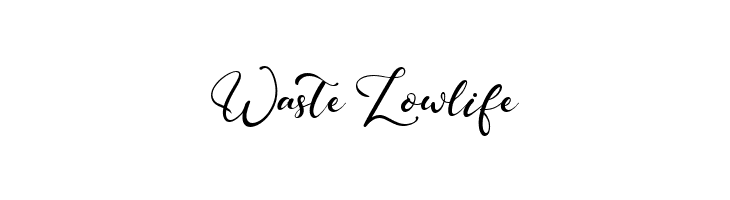
A bold, calligraphic font with dynamic, flowing characters.
A decorative serif font with elegant swashes and flourishes.
A modern, geometric font with clean lines and a minimalist aesthetic.
A bold, expressive script font with dynamic strokes and playful elegance.
A bold slab serif font with strong, block-like serifs and a vintage yet modern appeal.
A bold, slab serif font with strong, blocky characters for impactful designs.
Bold, italicized font with strong, thick strokes and a dynamic slant.
A bold, hollow font with geometric structure and consistent stroke thickness.
A bold, italicized font with a hollow interior and outlined characters.
A bold, italic font with a strong slant and uniform strokes, ideal for impactful headlines.
A playful, rounded handwritten font with a casual and friendly vibe.
A playful, handwritten-style font with rounded, irregular strokes.
A playful, hand-drawn font with bold, rounded strokes and a whimsical style.
A delicate, elegant script font with a handwritten style.
A dynamic and elegant script font with fluid, flowing letterforms.
A dynamic and fluid script font with elegant, flowing letterforms.
A modern, clean sans-serif font with excellent readability.
An elegant, flowing script font with high contrast and graceful curves.
A bold, modern font with strong, uniform characters.
A bold, italic font with a dynamic and modern style.
A bold, modern font with clean lines and excellent readability.
A bold, italic font with a modern and dynamic style.
A bold, modern sans-serif font with strong lines and uniform stroke width.
A bold, italic typeface with a modern and dynamic style.
A clean, modern, and extra light font perfect for minimalist designs.
A sleek, extra light italic font with a modern and elegant design.
A sleek, modern italic font with smooth curves and clean lines.
A modern, sans-serif typeface with clean lines and a balanced appearance.
A clean, modern sans-serif font with a semi-bold weight and balanced proportions.
A sleek, semi-bold italic font with a modern and elegant design.
A bold, cursive font with elegant loops and swashes.